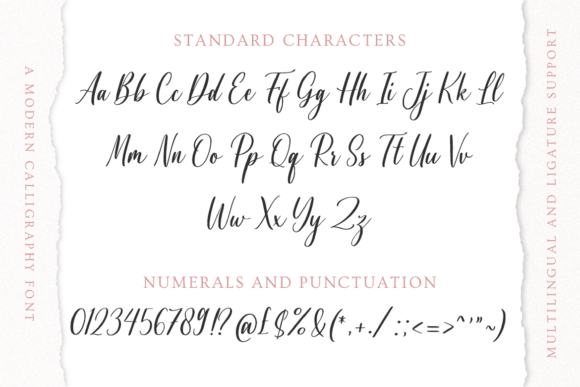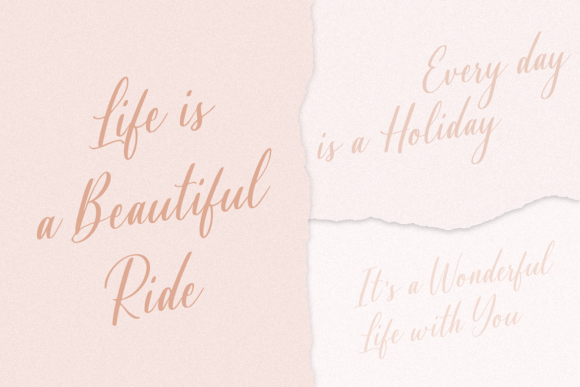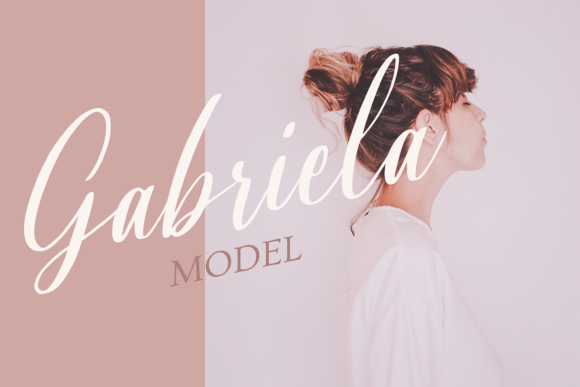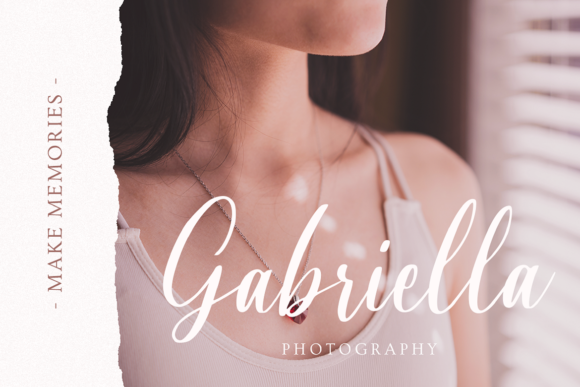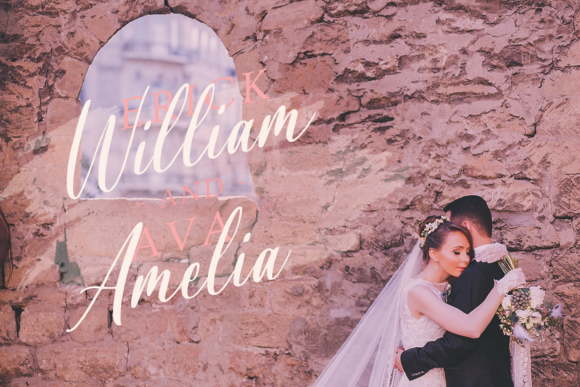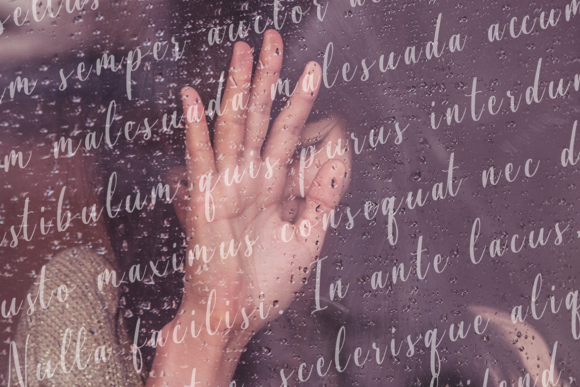
The Agnetta Font: A Designer’s New Best Friend
I still remember the project that led me to discover the Agnetta font. I was working on a branding campaign for a luxury boutique, and I was struggling to find the perfect font that would convey elegance, sophistication, and a touch of modernity. That’s when I stumbled upon Agnetta, and it quickly became my go-to font for the project. In this article, I’ll share my love for Agnetta, its features, and how to make the most of it in your designs.
An Honest Review of Agnetta
What I Love About Agnetta ✨
- 💫 Exquisite handwritten feel that’s perfect for luxury brands
- ✅ Classy calligraphic influences that add a touch of sophistication
- 🌟 Contemporary and fresh, making it suitable for modern designs
- 🎨 Highly versatile, works well for both digital and print projects
- ⚠️ Some users may find the font a bit too ornate for certain projects
- 🤔 Limited use of uppercase letters, which may require creative workarounds
The Backstory of Agnetta
Agnetta was designed with the intention of creating a font that would evoke the elegance of traditional calligraphy while feeling fresh and modern. The designer aimed to craft a font that would be perfect for luxury brands, wedding designs, and high-end marketing materials. With its exquisite handwritten feel and classy influences, Agnetta has become a favorite among designers and crafters alike.
Q: What type of projects is Agnetta best suited for?
Agnetta is perfect for luxury brands, wedding designs, high-end marketing materials, and any project that requires an elegant, sophisticated touch.
Q: Is Agnetta a difficult font to use?
Not at all! Agnetta is relatively easy to use, even for those without extensive design experience. With its intuitive design and OpenType features, you can create stunning text arrangements in no time.